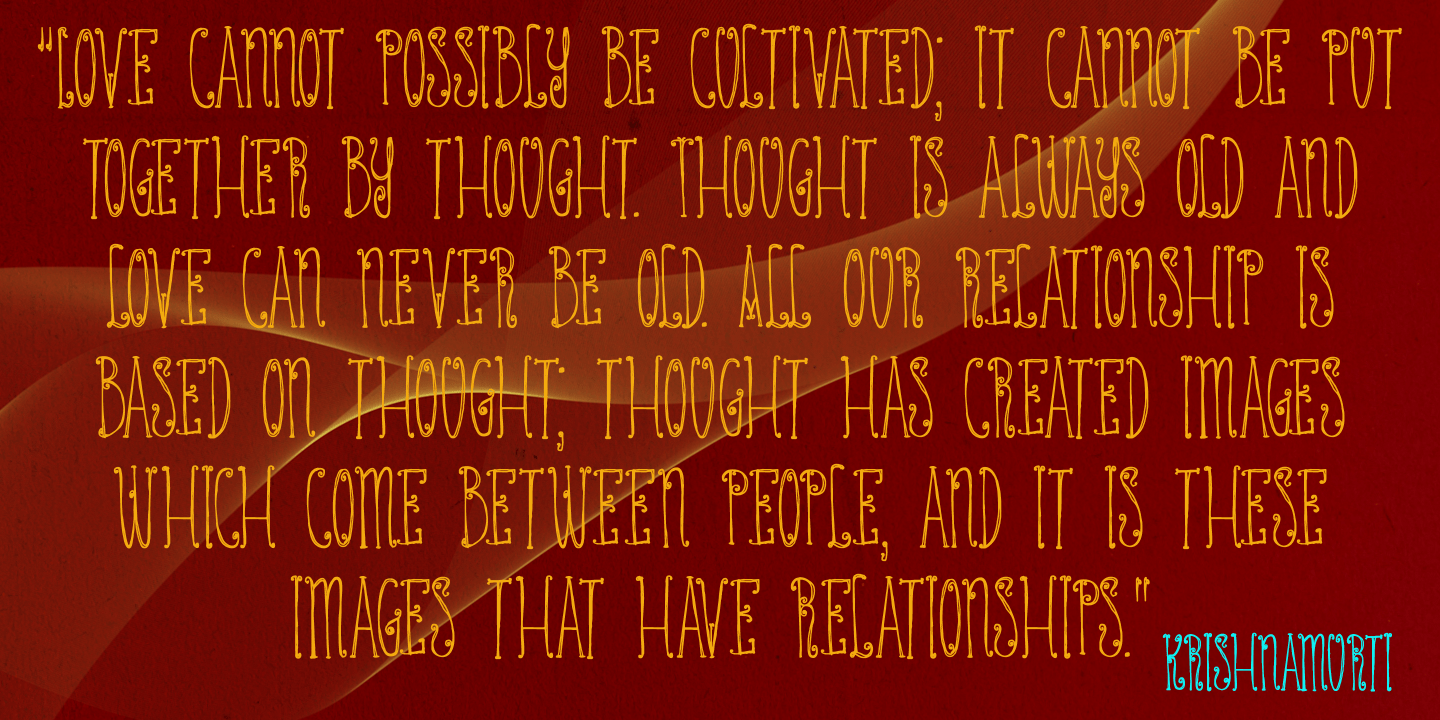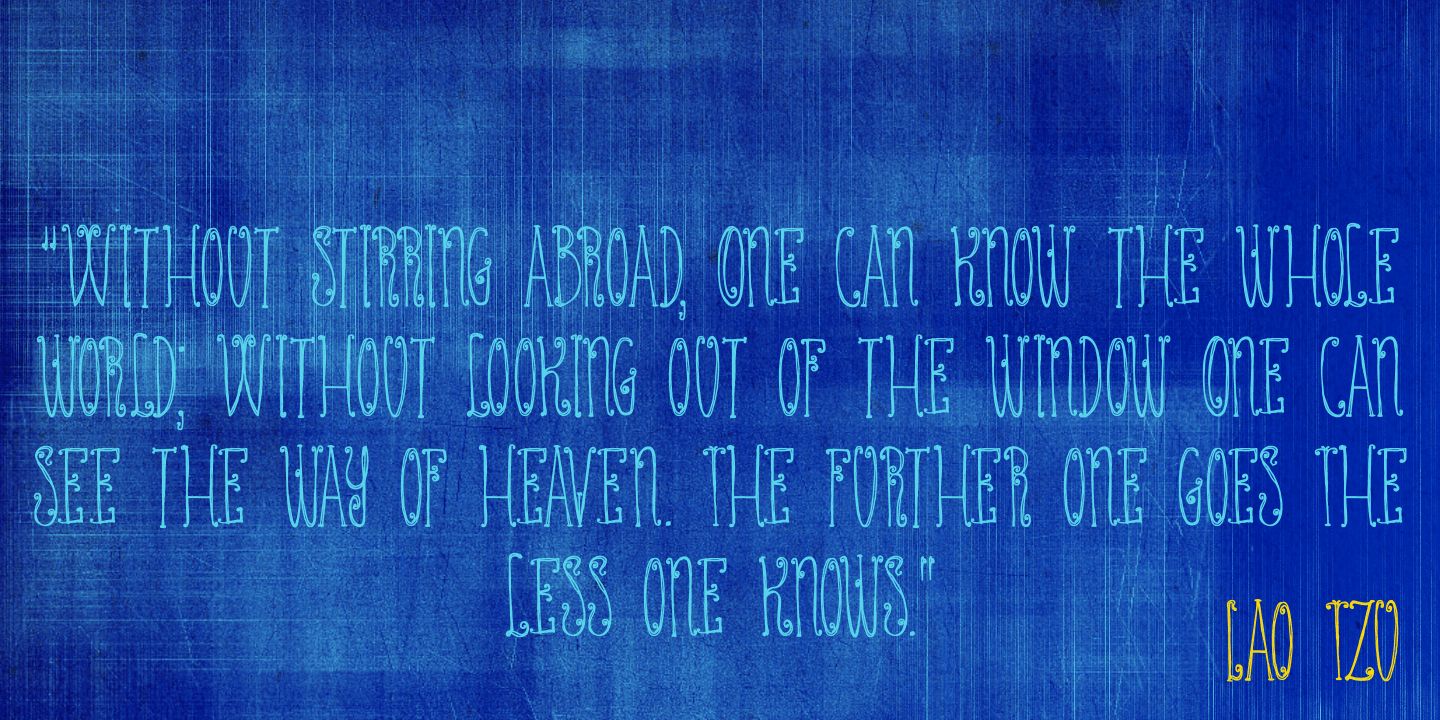
Ashtanga
Font Family by Hanoded
Buy NowAshtanga was named after a type of yoga. In Sanskrit it means "eight-limbed", which I find quite appropriate, give the amount of swirls and curls. The font is 'all-caps', but the upper and lower case glyphs differ completely. They are, of course, fully interchangeable. Ashtanga comes with multi language support.